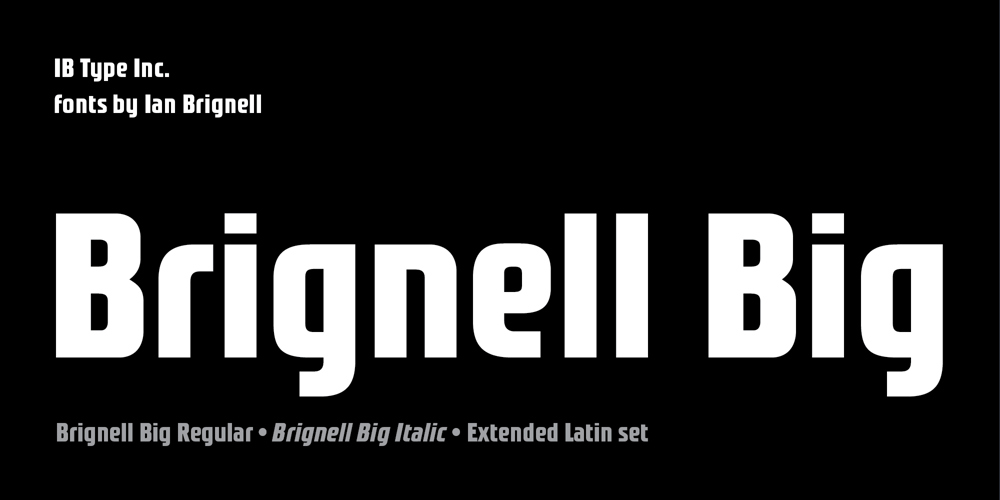
Brignell Big
Brignell Big font
Brignell Big Font Family was designed by Ian Brignell and published by IB TYPE Inc.. Brignell Big contains 2 styles and family package options. BRIGNELL BIG is a two font family designed by Ian Brignell.Bold and honest, it approaches like a dare: Go Big no regrets.A bold, personable sans serif headline font characterized by a stylized and geometric structure. Creatively, Brignell Big was born in 2011 and was inspired by lettering designs Ian was working on for CO Bigelow packaging that harkened back to early 20th century modern sans serifs. Recommended for headline use especially on packaging. Extended Latin set.